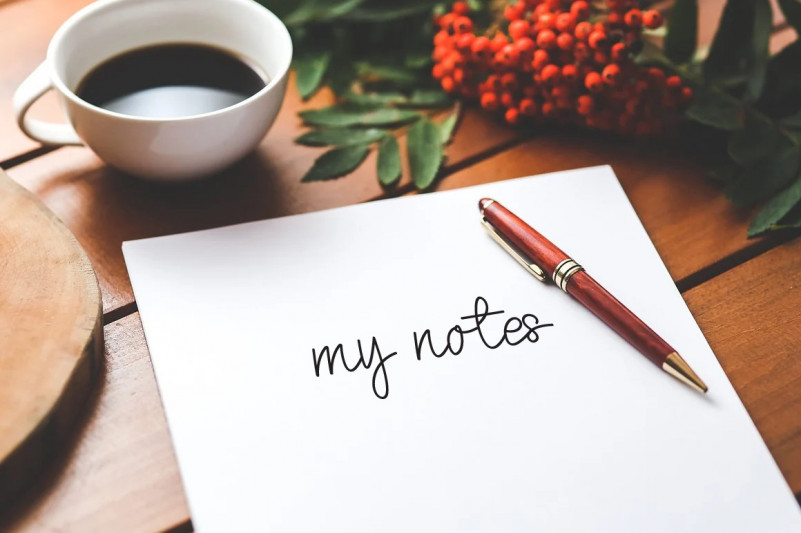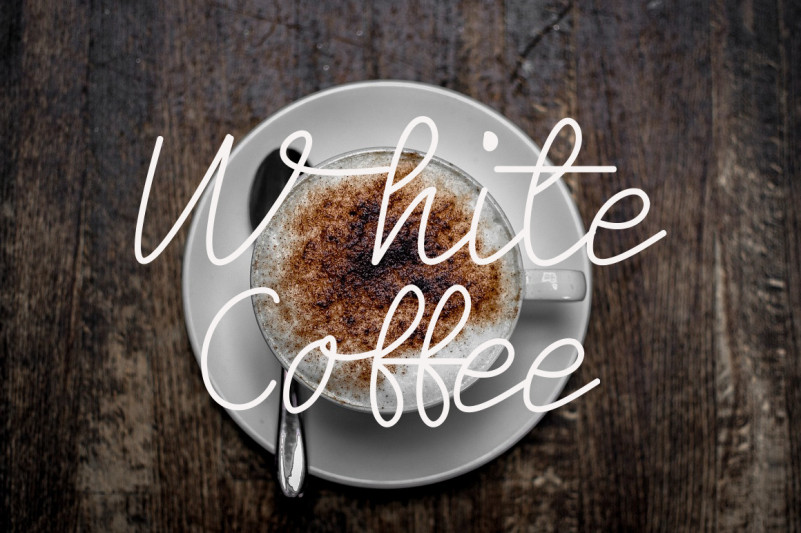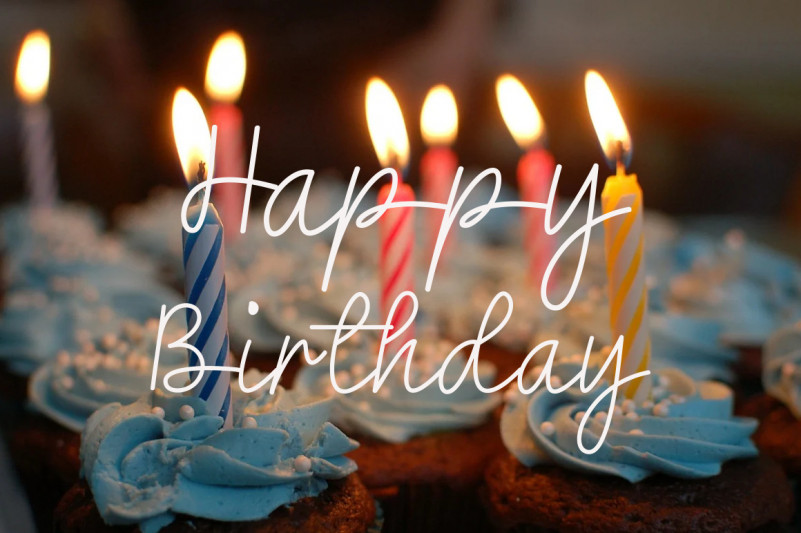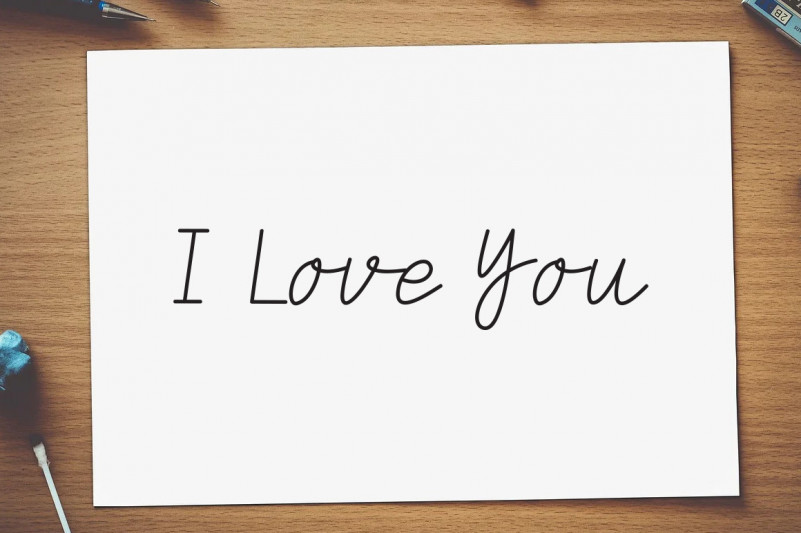
Santiago Chile Font
Santiago Chile Handwritten Font
This is a dainty, thin and cursive handwritten font. This gentle font will look gorgeous on a variety of design ideas. It will add a joyful and romantic touch to each of your projects!